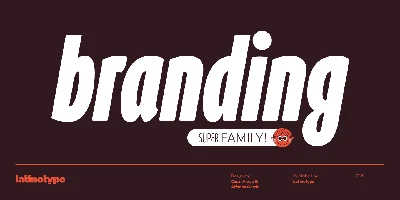
Branding SF Font
Branding SF Font excels in various design applications including professional brand identities, corporate logo designs, business card layouts, marketing material typography, brand guideline documents, professional signage systems, corporate communication designs, and strategic branding presentations. This professional typeface adapts strategically to both branding digital platforms and corporate print materials, making it perfect for designers seeking branding authenticity and professional sophistication in their visual communications.
Branding SF Font generates excitement among design professionals due to its branding character and professional styling that instantly conveys corporate excellence and brand reliability. The font's strategic letterforms and branding proportions create an immediate sense of professional authority and brand consistency. Its corporate personality makes it particularly appealing for organizations wanting to communicate brand professionalism, strategic thinking, and corporate excellence in their visual identity.
The Branding SF Font family includes multiple weights and styles such as Regular, Bold, Light, Corporate, and Strategic variations. Each family member maintains branding design principles while offering distinct professional characteristics. The Light weight provides subtle branding elegance for refined applications, while the Corporate version delivers authoritative impact for professional headlines and strategic brand statements.
Professional designers frequently choose Branding SF Font for projects requiring both branding authenticity and corporate distinction. This typeface demonstrates remarkable effectiveness across business industries including branding agencies, corporate consultants, marketing firms, and professional service organizations. Its branding character allows companies to communicate professional excellence while maintaining excellent readability and strategic visual appeal that reflects the importance of consistent branding and professional corporate communications.